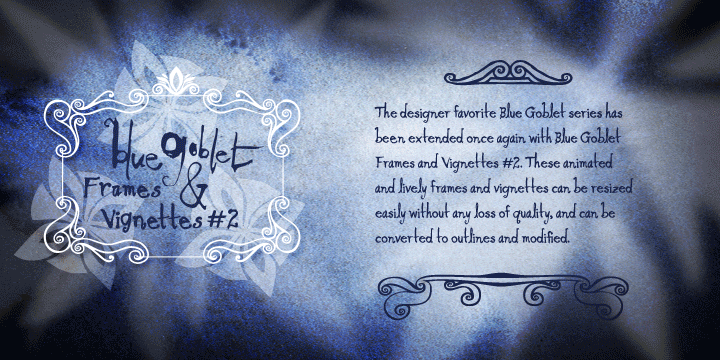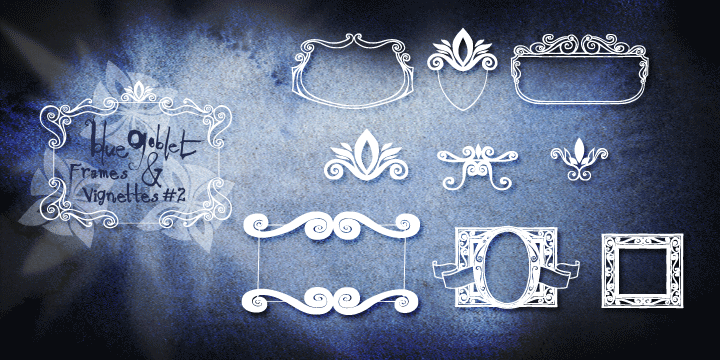
Blue Goblet Frames and Vignettes 2 is a dingbat font family. This typeface has two styles and was published by Insigne Design.
The designer favorite Blue Goblet series has been extended once again with Blue Goblet Frames and Vignettes 2. These animated and lively frames and vignettes can be resized easily without any loss of quality, and can easily be converted to outlines and modified. Combining them to form unique compositions or inserting them into chapter headings are just a few ideas for these versatile ornaments. Please see the sample .pdf to see all 96 Frames and Vignettes in action, and be sure to check out the original Blue Goblet Frames and Vignettes, Blue Goblet brush script and Blue Goblet Ornaments, Emblems and Florals.